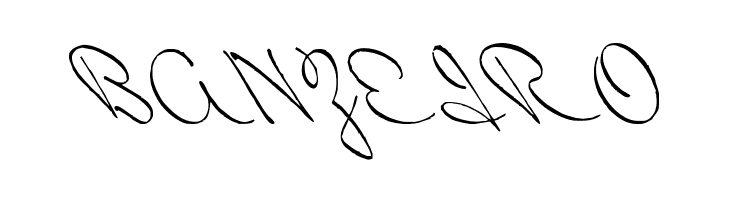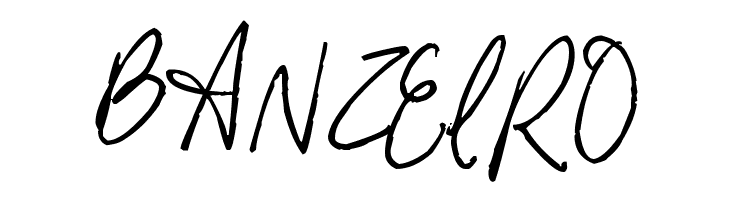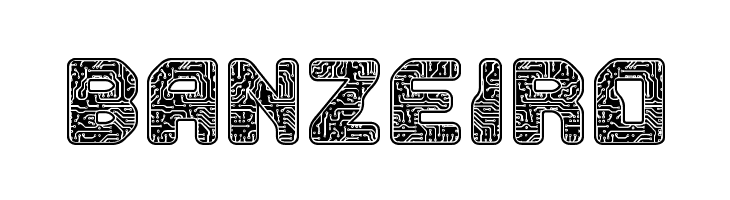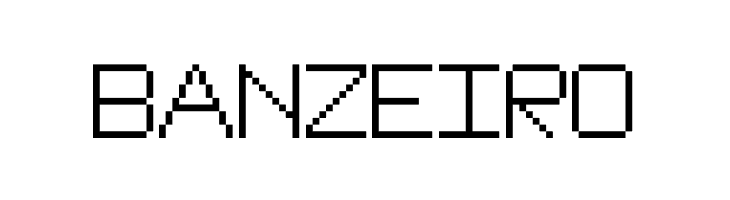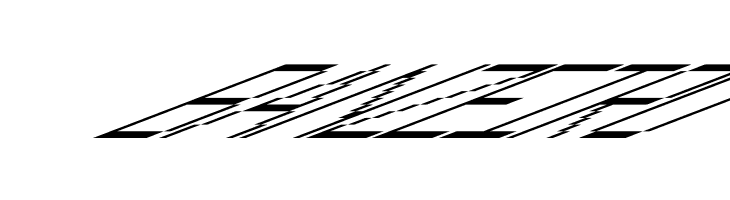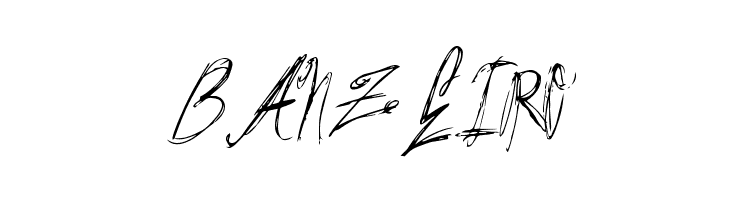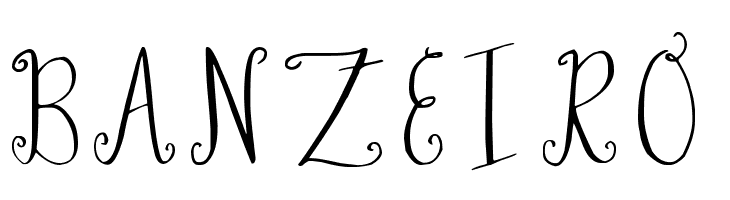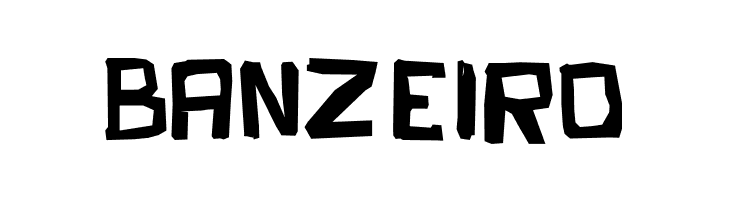
A bold, playful handwritten font with a casual and friendly style.
A decorative and playful font with artistic curves and bold characters.
An expressive, hand-drawn font with dynamic and fluid strokes.
A bold, geometric font with angular shapes and a futuristic style.
A bold, playful font with a dotted texture and rounded characters.
A playful, handwritten-style font with bold, rounded characters.
A playful, handwritten font with bold, rounded strokes and a casual style.
A modern, tall, and narrow sans-serif font with a clean and streamlined appearance.
A bold, slanted font with a fragmented, energetic style.
A decorative font with intricate circuit board patterns inside bold, blocky letterforms.
A bold, graffiti-inspired font with angular, hand-drawn characters.
A bold, textured font with a hand-drawn, vintage style.
A modern, geometric font with rounded edges and balanced spacing.
A modern, geometric sans-serif font with consistent stroke width and balanced spacing.
A bold, modern font with sharp angles and a slightly condensed form.
A bold, hand-drawn font with jagged edges and a rugged, artistic style.
A bold, geometric font with a pixelated, digital aesthetic.
A modern, geometric sans-serif font with rounded edges and a clean design.
A whimsical, curly serif font with playful swirls and loops.
A bold, playful font with rounded edges and a hand-drawn feel.
An elegant, flowing script font with a natural handwriting style.
An elegant, condensed font with tall, slender characters and delicate curves.